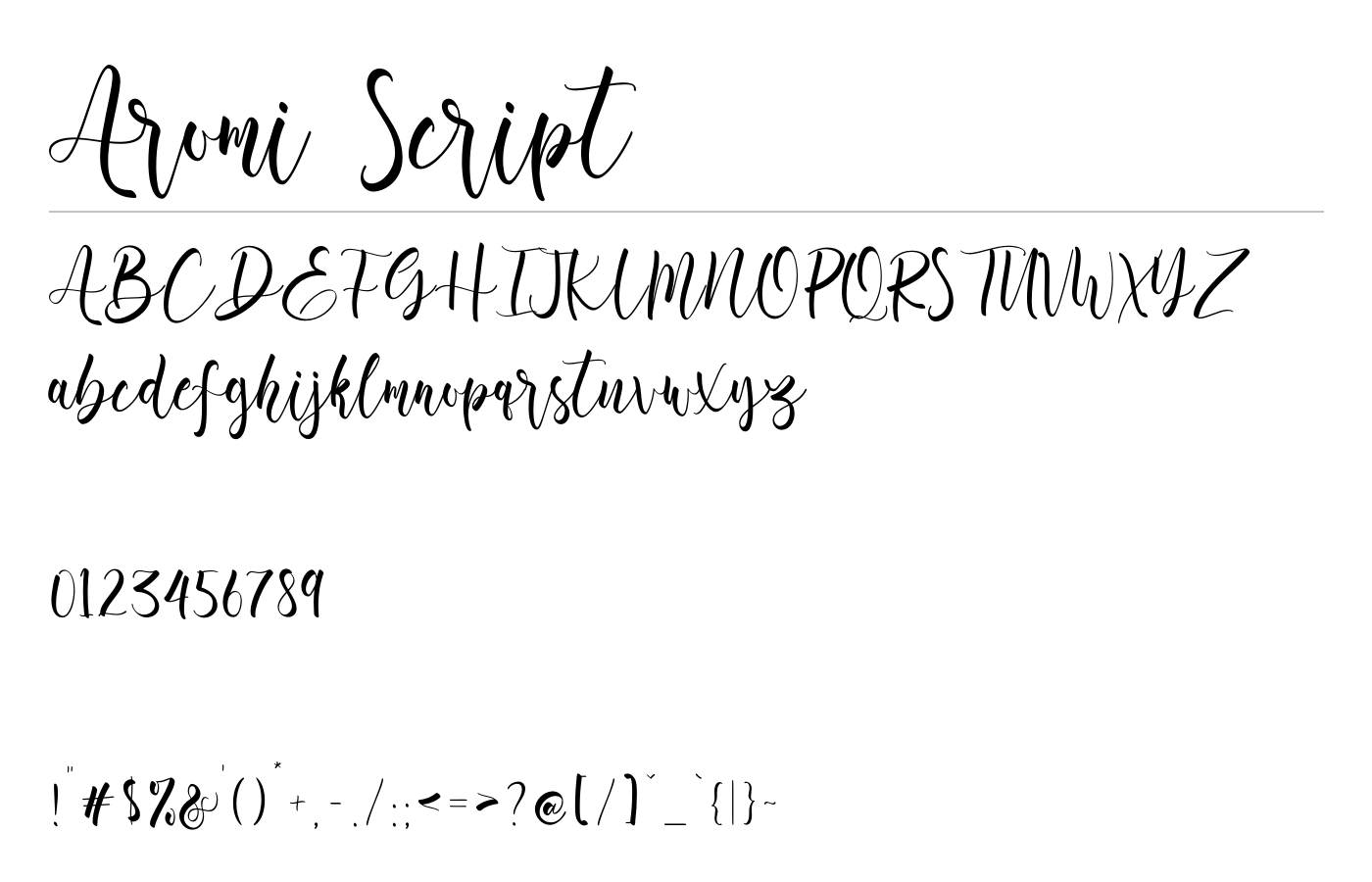
Aromi Script is a graceful, hand-drawn script font characterized by its elegant, flowing strokes and varied line thickness that mimic natural handwriting. Its tall, narrow letterforms with gentle curves and delicate swashes give it a refined yet approachable personality, making it ideal for wedding invitations, branding, and feminine design projects that need a personal, stylish touch. This font shines in headlines and decorative uses where a sophisticated, artistic vibe is desired.
Aromi Script Font
About Aromi Script Font
| Font family | Aromi Script Font |
| Designer | Eko Kurniawan | Letteratom™ |